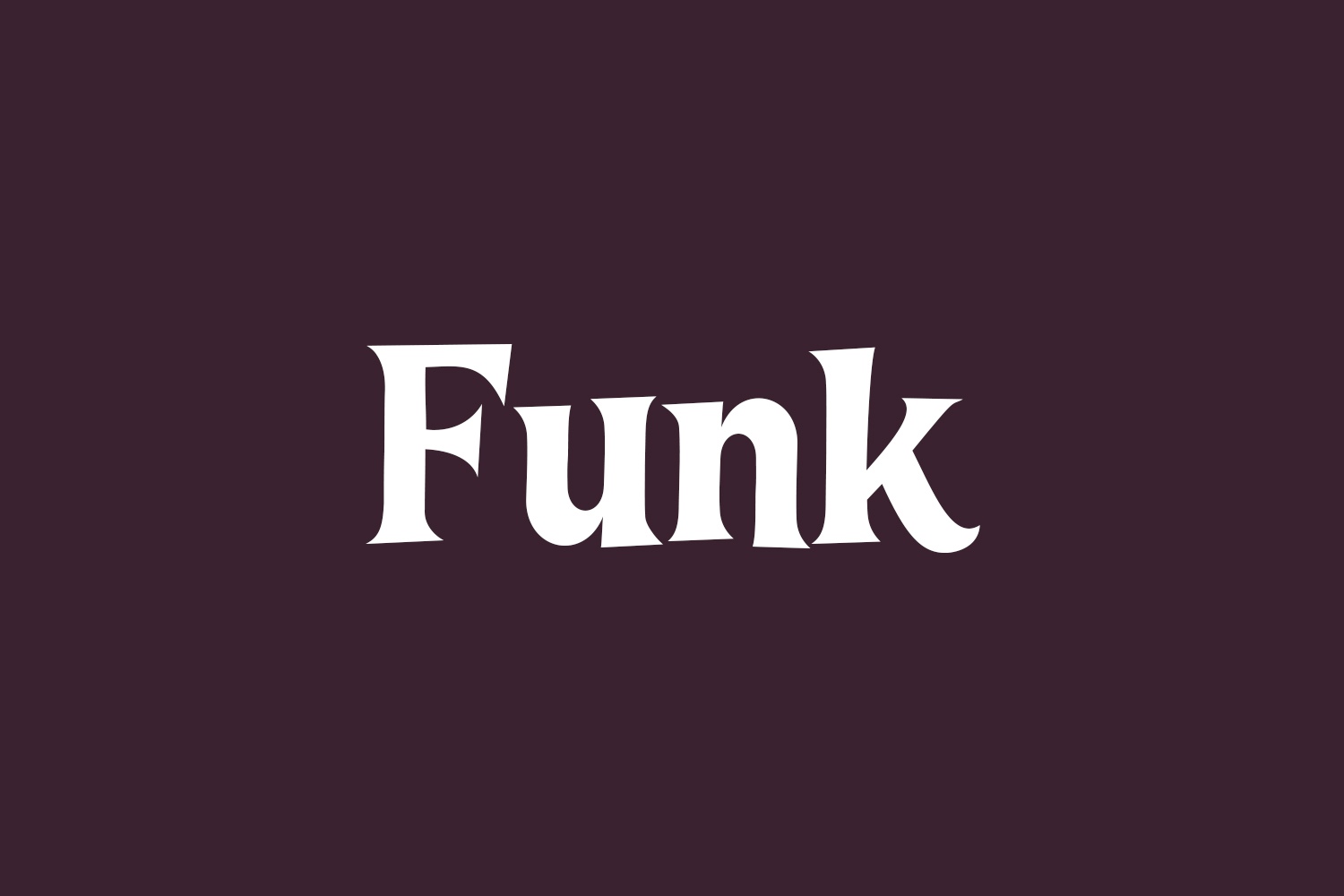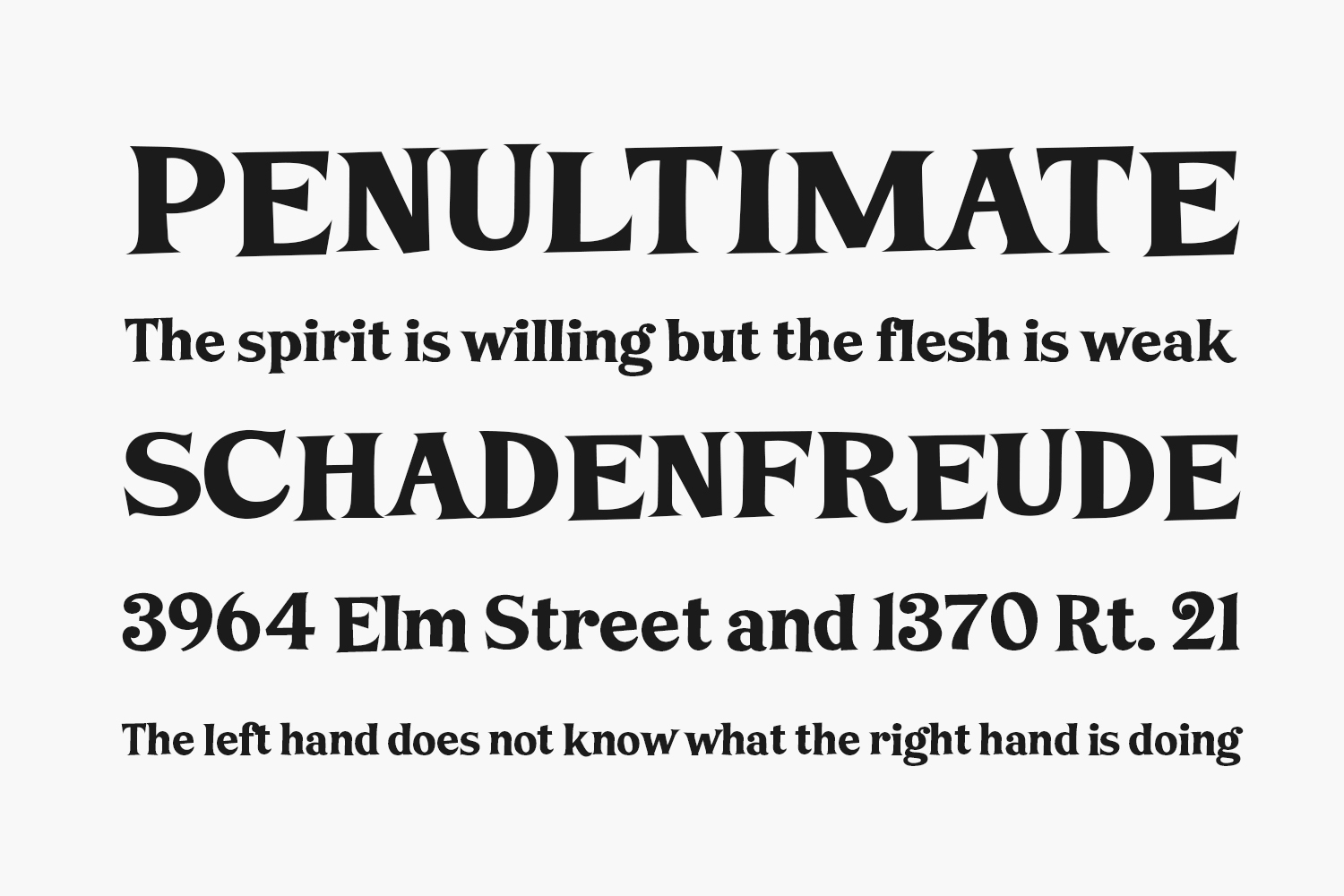
Funk Free Font is a funky bold serif font that can be used for cartoon projects that are set in the ’50s, ’60s and ’70s. Funk Free Font was designed by LyonsType and is free for personal or commercial use.